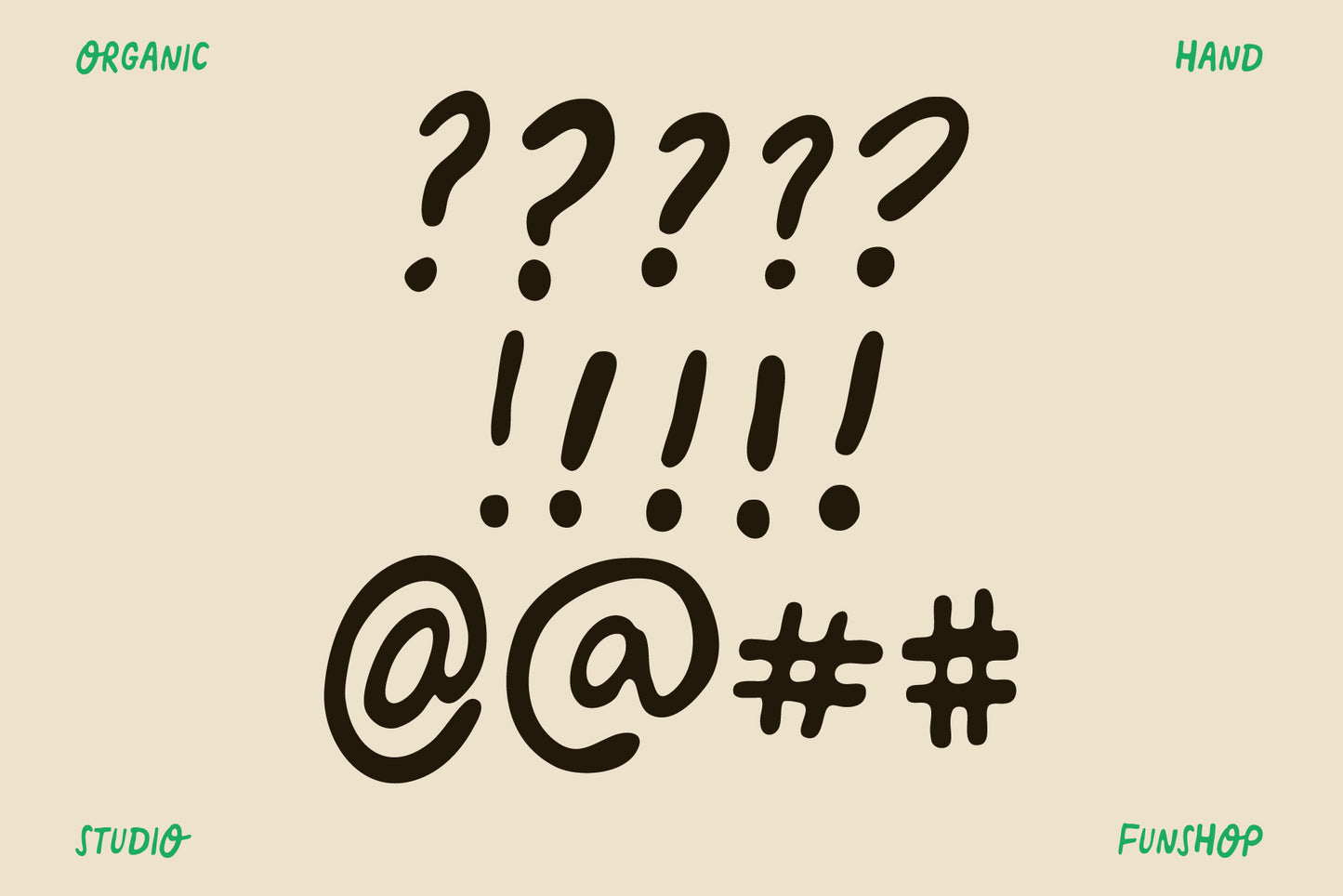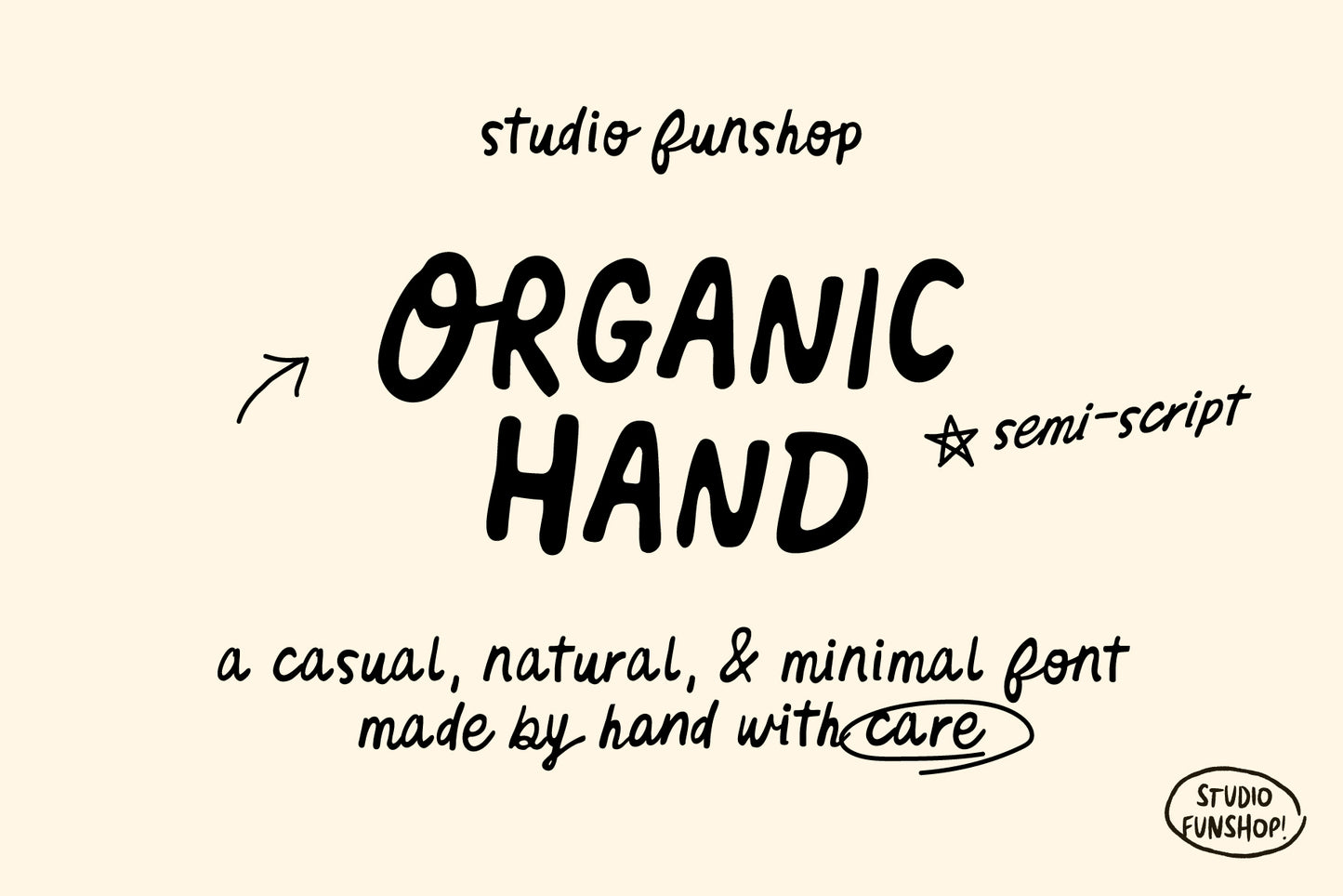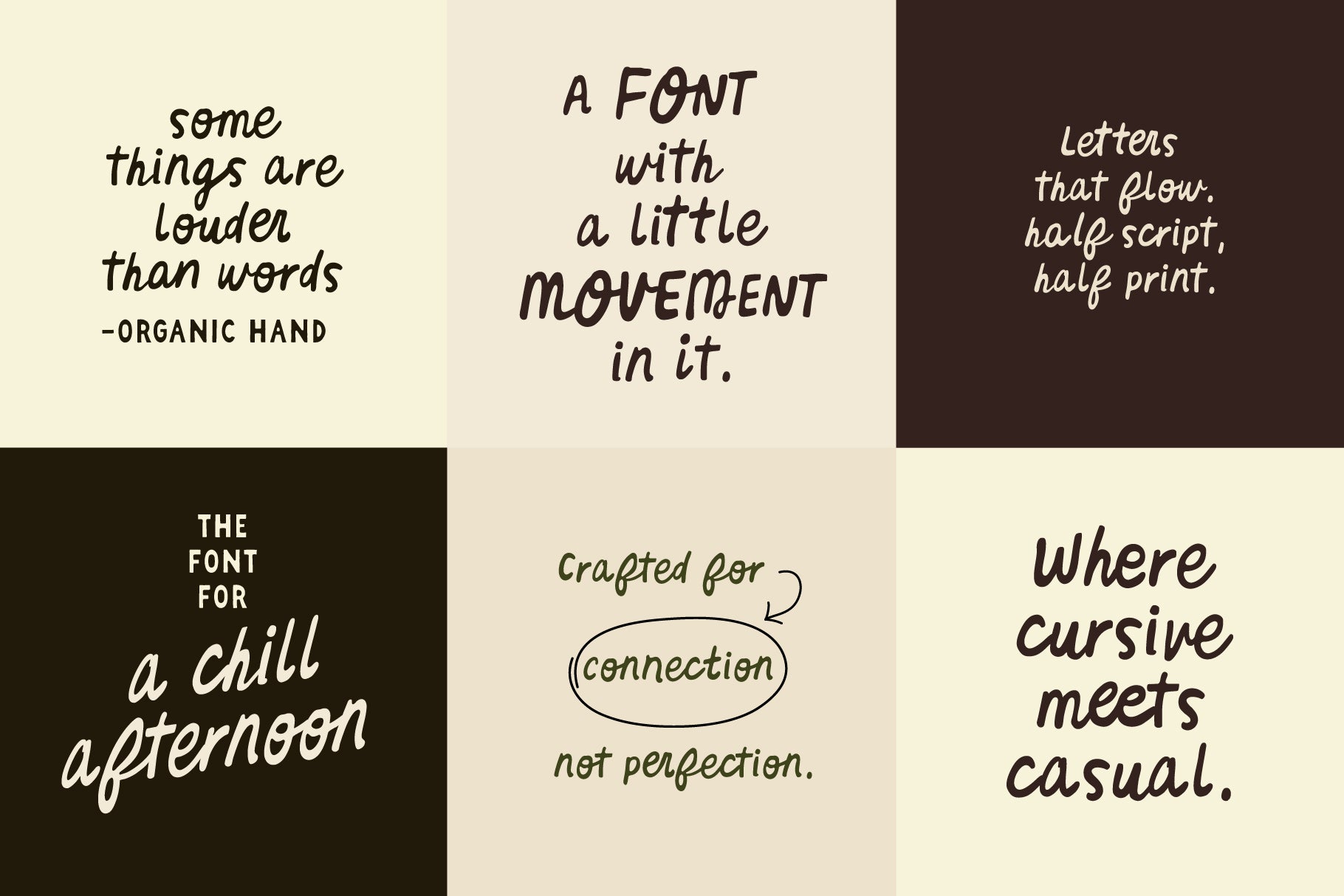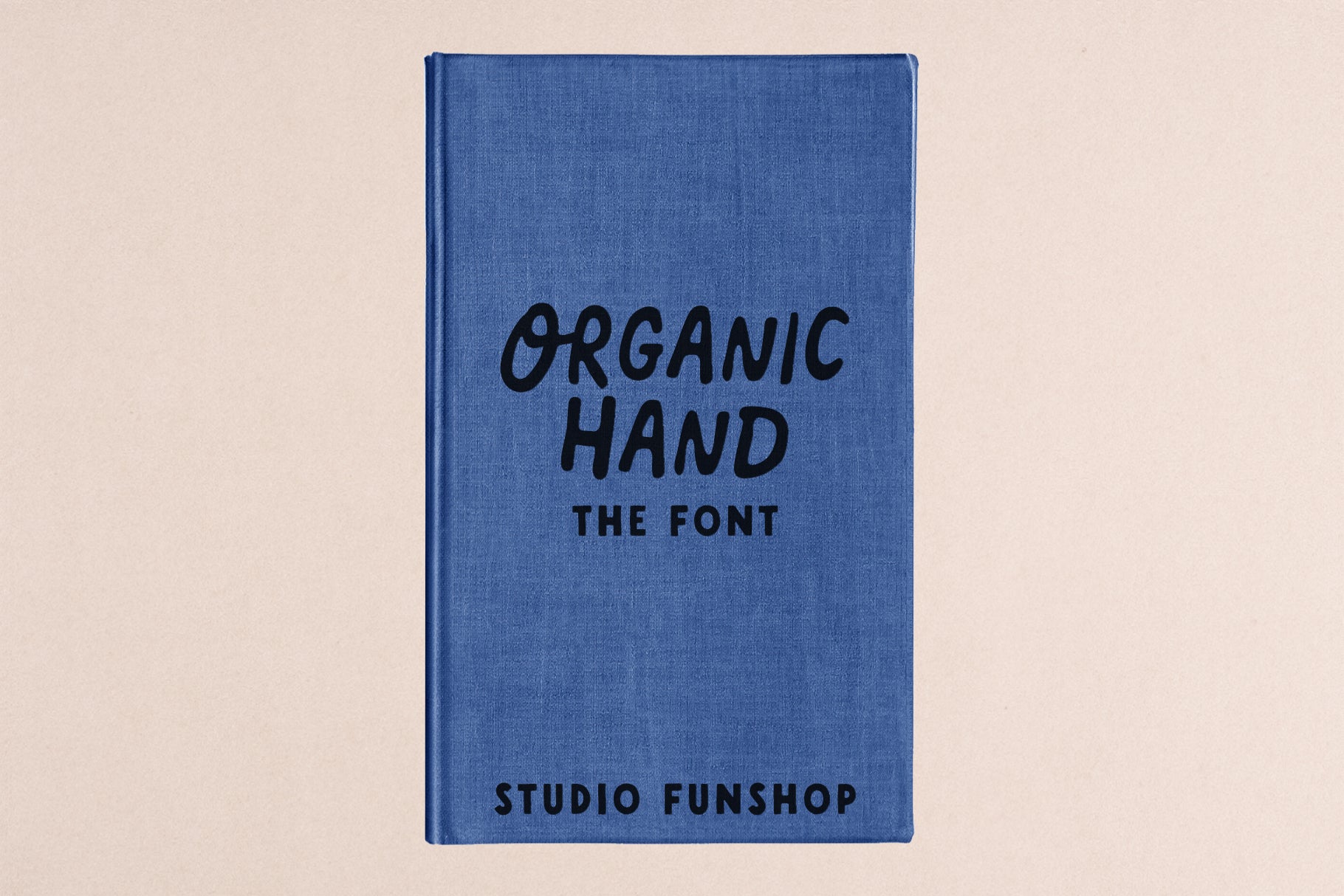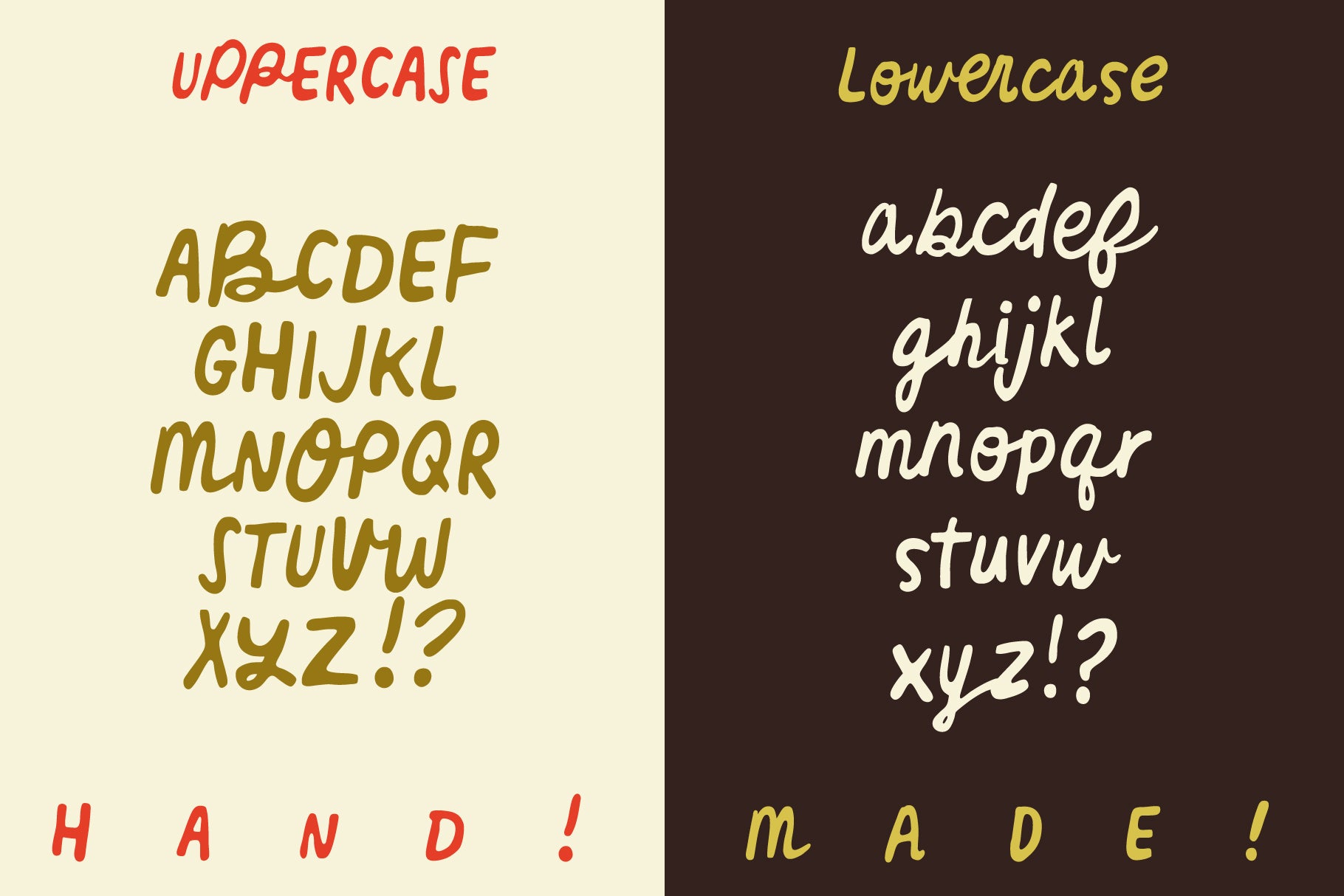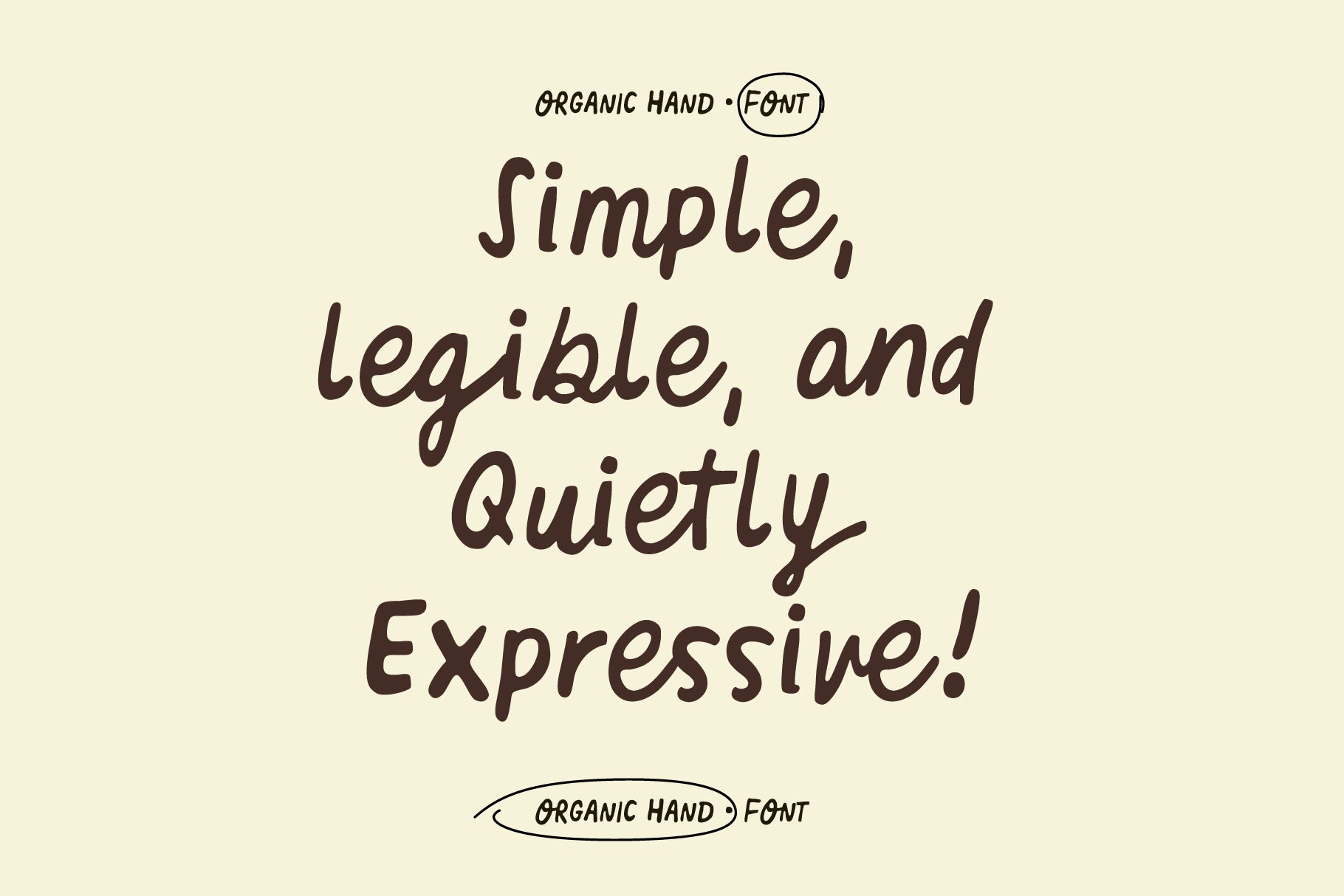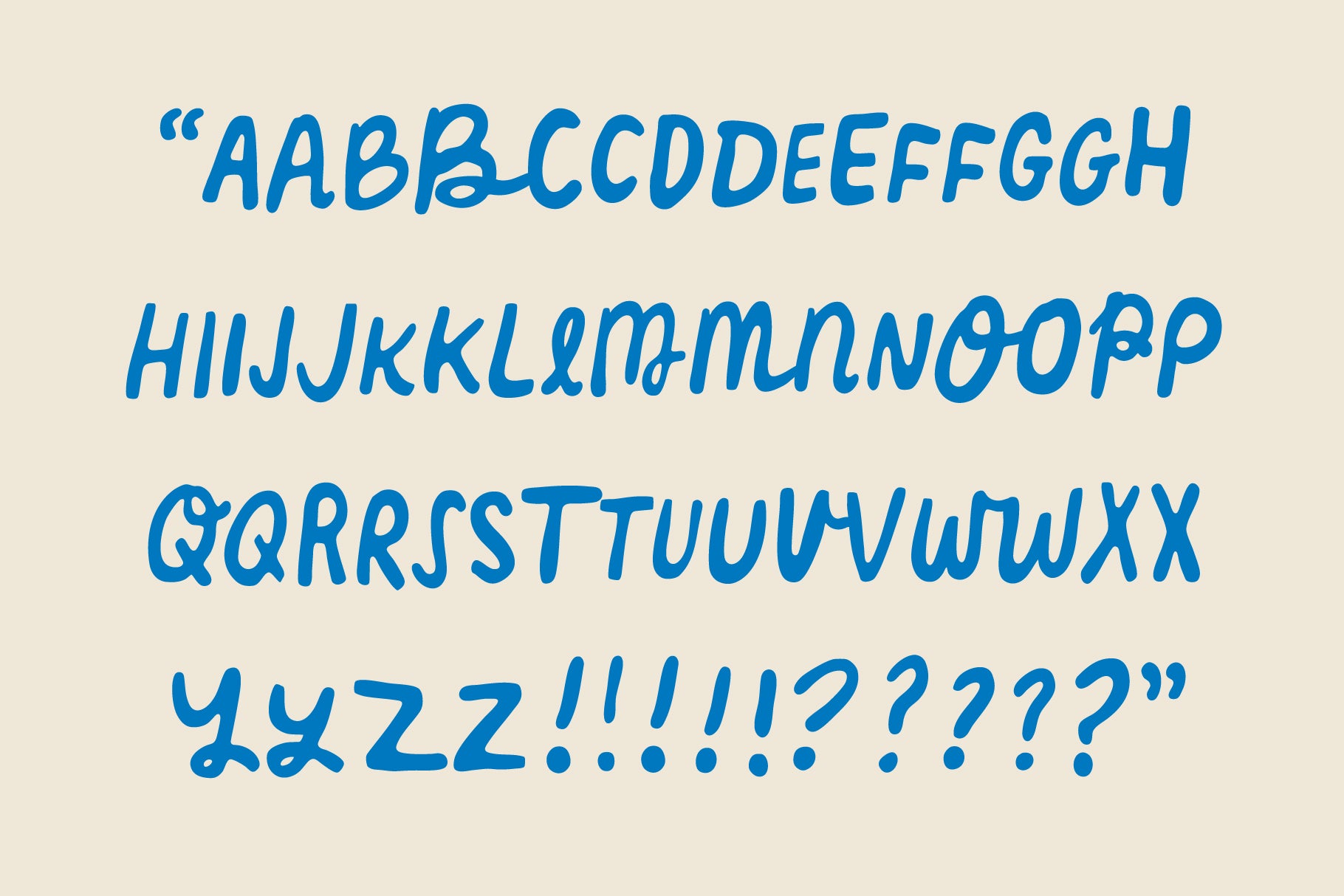
Organic Hand - Semi-script Font
Organic Hand is a semi-script font that blends the simplicity of print with the flow of script. Casual, natural, and quietly expressive.
Each letter was drawn by hand, capturing relaxed strokes, natural curves, and subtle wobbles that make every word feel personal and alive.
It’s clean, legible, and full of soft energy. Perfect for branding, packaging, social posts, or design projects.
- Uppercase & Lowercase A–Z
- Numbers, Symbols & Punctuation
- Alternates for natural variation
- Some ligatures (OO,EE,PP,LL,ll,dd,oo,ci,ee,og,um,an,er,la,he,tt)